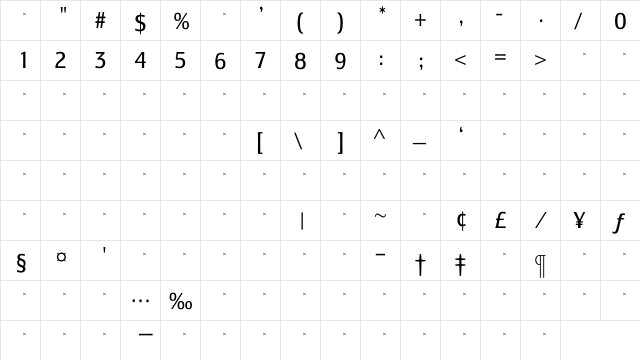
LesmoreBookCondensedTab Regular Font Preview
LesmoreBookCondensedTab Regular
LesmoreBookCondensedTab Regular Font Details
Design Context for LesmoreBookCondensedTab Typeface
LesmoreBookCondensedTab takes a measured approach to typography — its balanced proportions and neutral character make it a reliable workhorse for both digital and print work. Its narrow stance lets it pack a punch even in space-constrained designs.